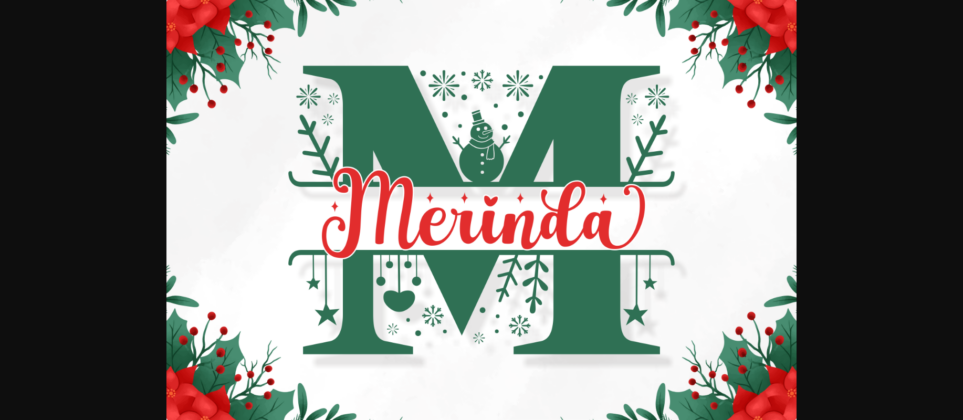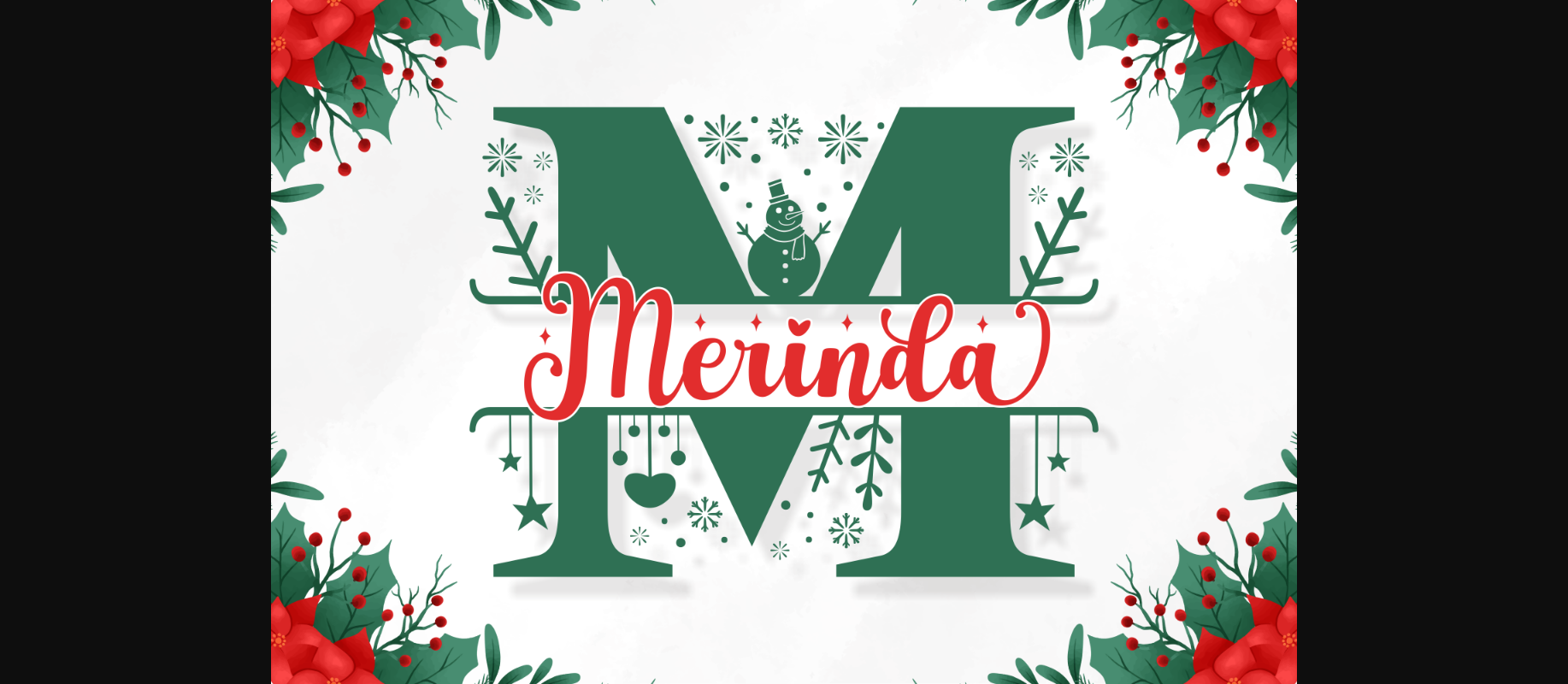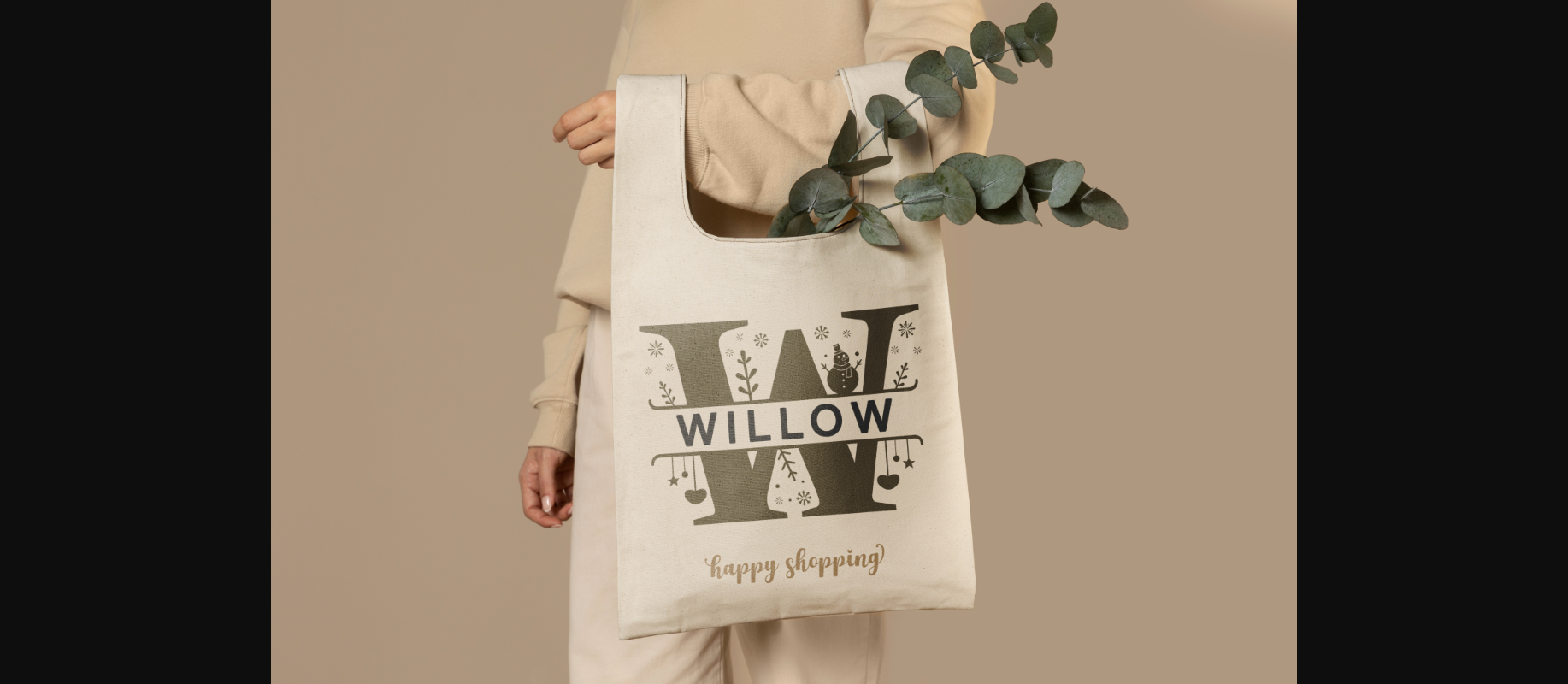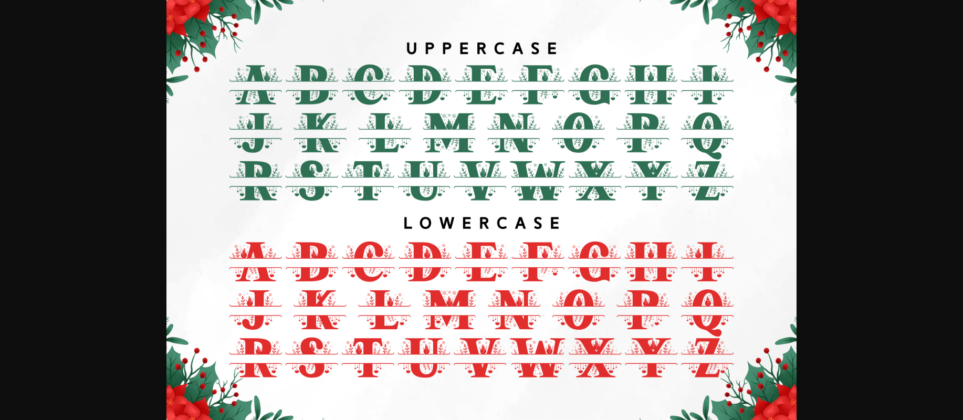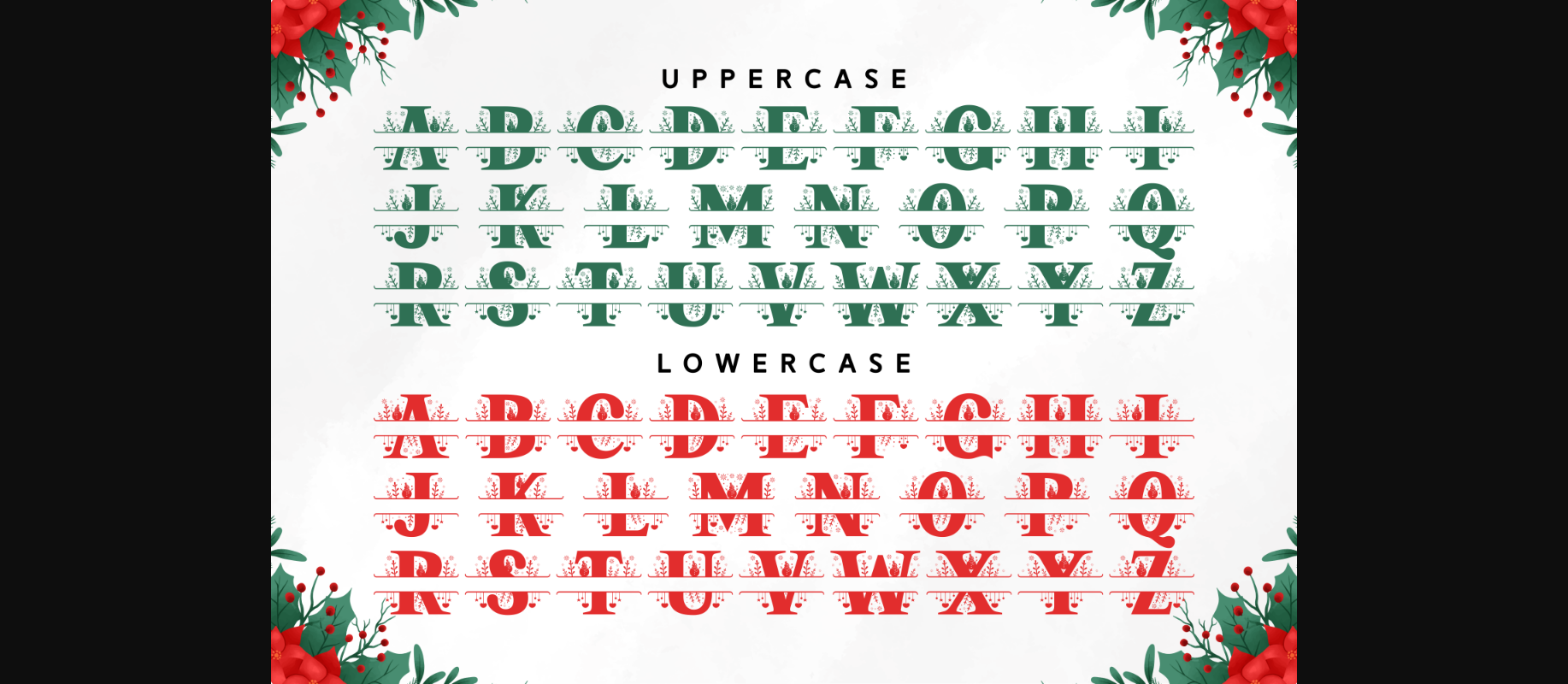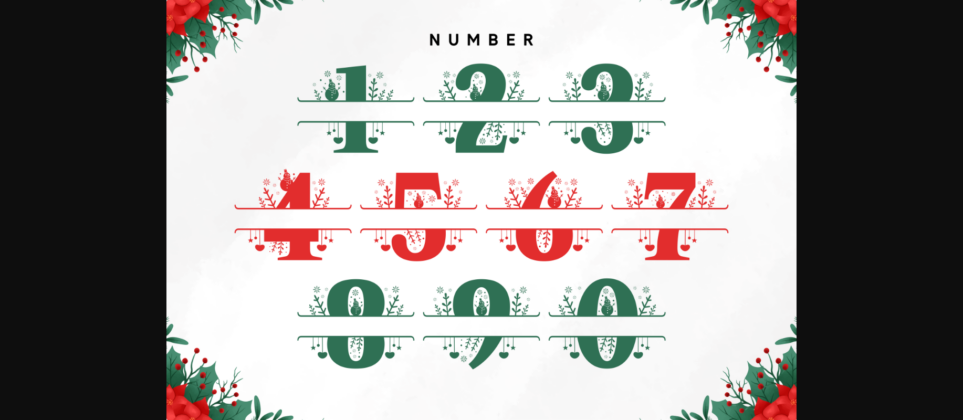
About Merinda Font
Merinda is a dazzling decorative monogram font, featuring lovely ornaments. Fall in love with its authentic feel and use it to create gorgeous wedding invitations, beautiful stationary art, eye-catching social media posts, and cute greeting cards.